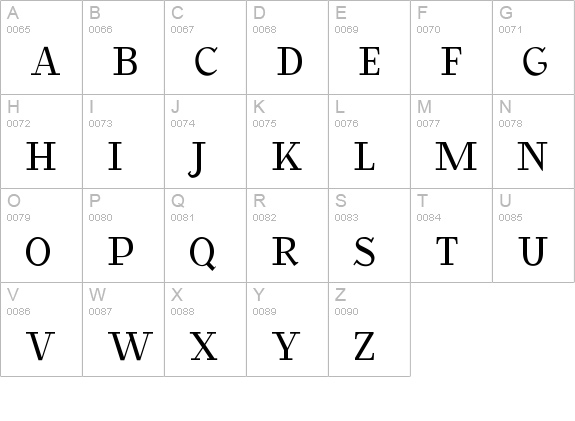
Safran Font Details
Introducing Safran, a captivating and versatile font that will elevate your design projects to new heights. With its elegant curves and modern yet timeless appearance, Safran is the perfect choice for a wide range of creative endeavors, whether it's branding, packaging, typography, or any other design project that requires a touch of sophistication. What sets Safran apart is not only its exquisite design but also its accessibility. This font is freely available to download at FontsMarket.com, allowing designers of all levels to incorporate its beauty into their work without any limitations. Say goodbye to expensive font licenses and hello to creative freedom. Safran's versatility shines through in its various weights and styles, allowing you to experiment and create unique combinations that perfectly capture your vision. Whether you prefer a bold statement or a more subtle elegance, Safran has got you covered. The attention to detail in Safran is truly remarkable, with each character meticulously crafted to ensure seamless legibility and visual harmony. Its graceful letterforms effortlessly flow from one to another, creating a harmonious rhythm that draws the eye and captivates the reader. Don't miss out on the opportunity to enhance your designs with this stunning font. Download Safran for free at FontsMarket.com and unlock the endless possibilities that await. Elevate your creative endeavors and let Safran be the secret ingredient that sets your work apart from the rest.